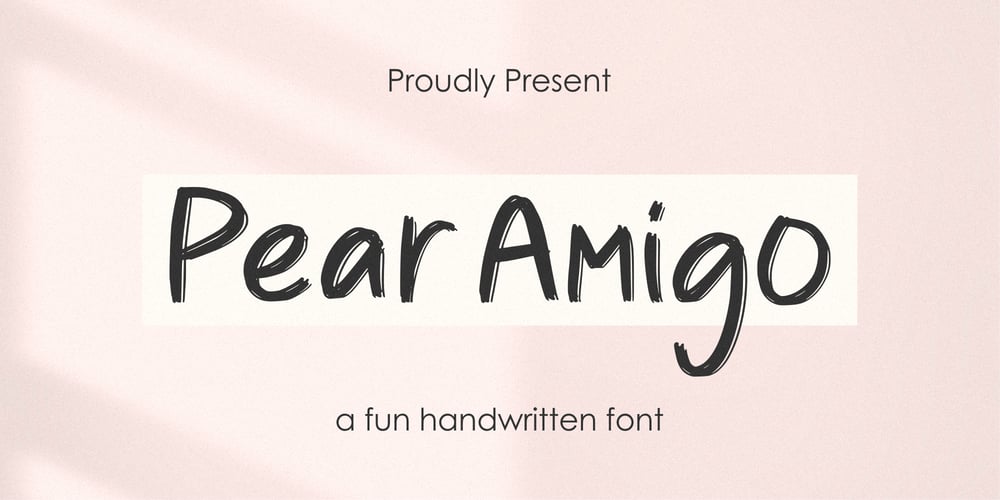
Pear Amigo Font Family was designed by Suhery Anto, Odies Dwi Yudhistira and published by Qwrtype Foundry. Pear Amigo contains 1 styles and family package options. Proudly Present, Pear Amigo is a Fun Handwritten FontPear Amigo is perfect for product packaging, branding project, megazine, social media, wedding, or just used to express words above the background.Pear Amigo also come with Multi-Lingual Support.Thank you!